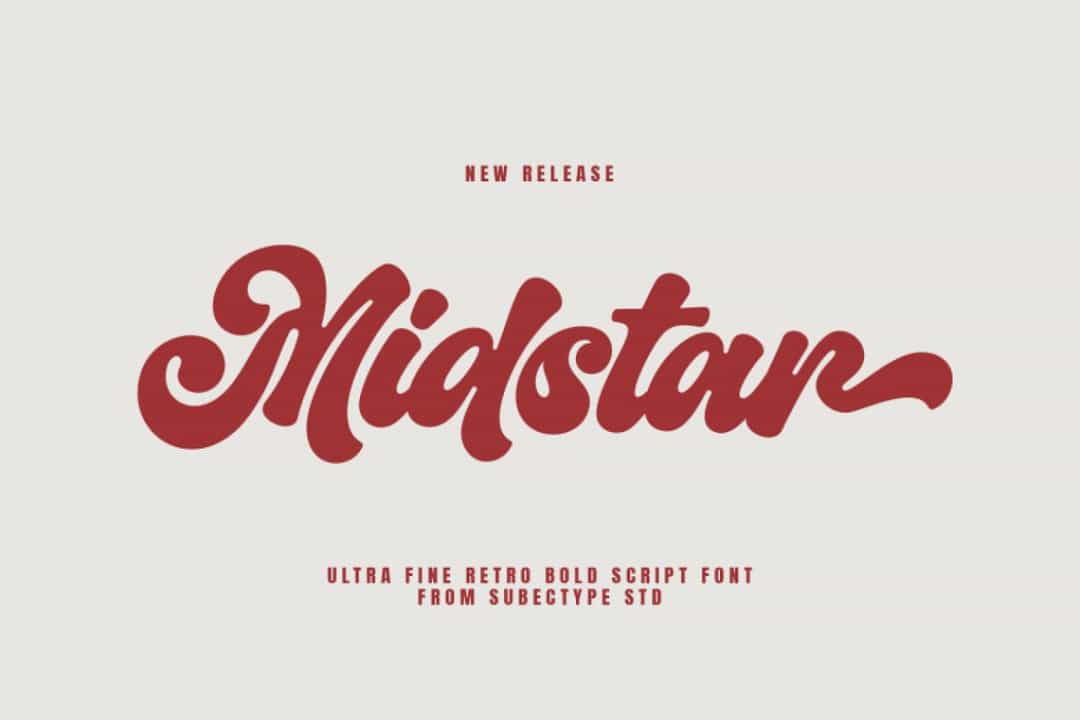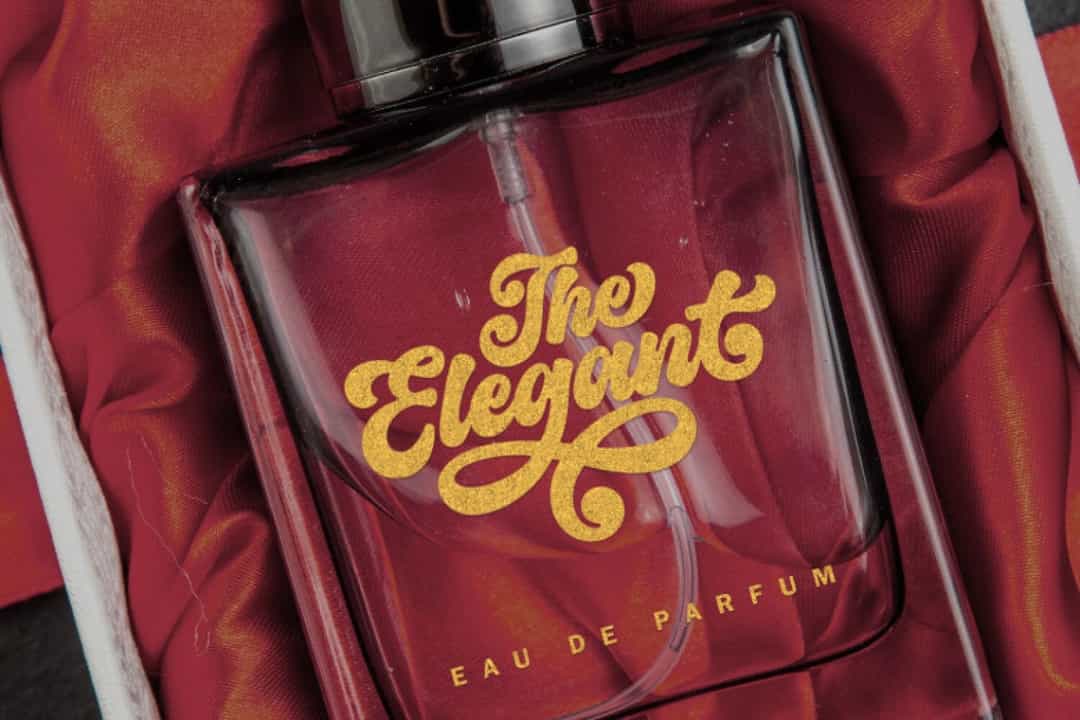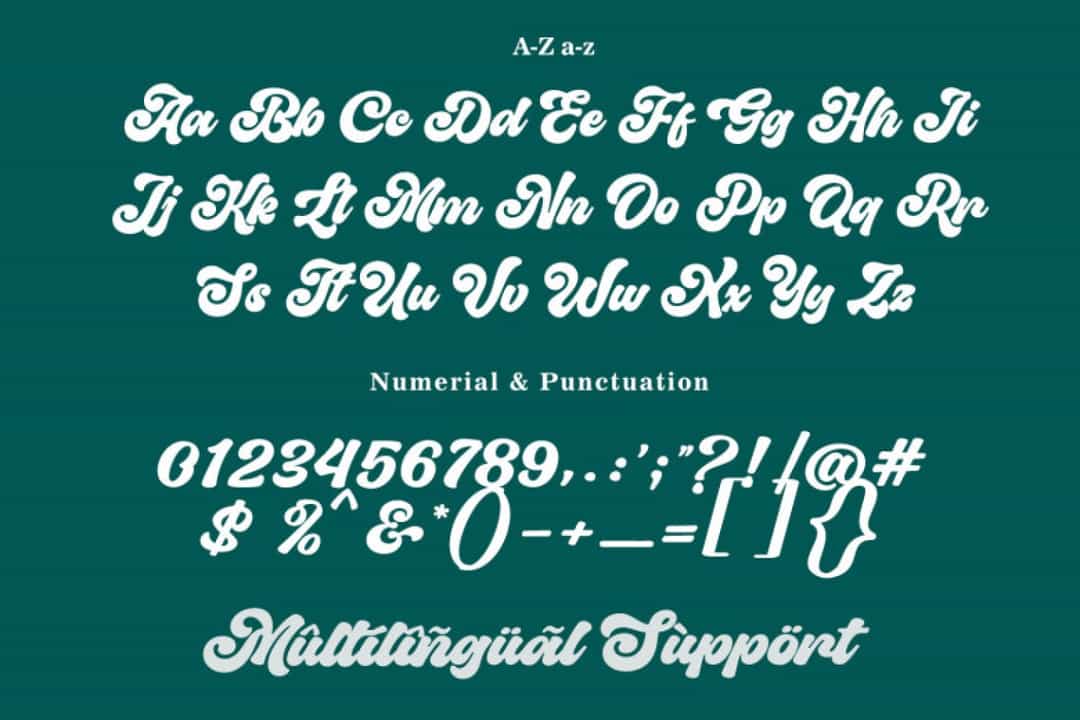
Midstar, is a simple yet elegant font which is a retro script display font that gives an ideological feeling of the mid-century period. Thanks to its elegant and fluid style with playful swashes it is perfect for projects which need a dash of the retro feeling, like old movie posters, old music albums, branding for retro or nostalgic events.